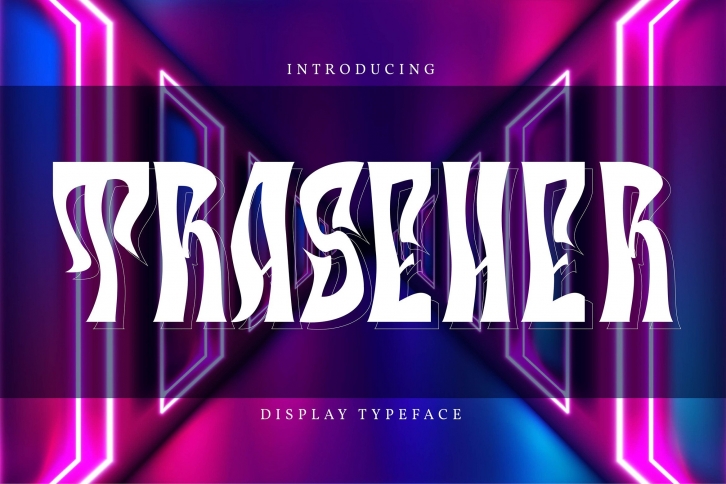
Traseher is an incredibly cool, trendy and retro styled display font. This font is PUA encoded which means you can access all of the glyphs and swashes with ease!Â
Fall in love with its versatile style and use it to create spectacular designs!